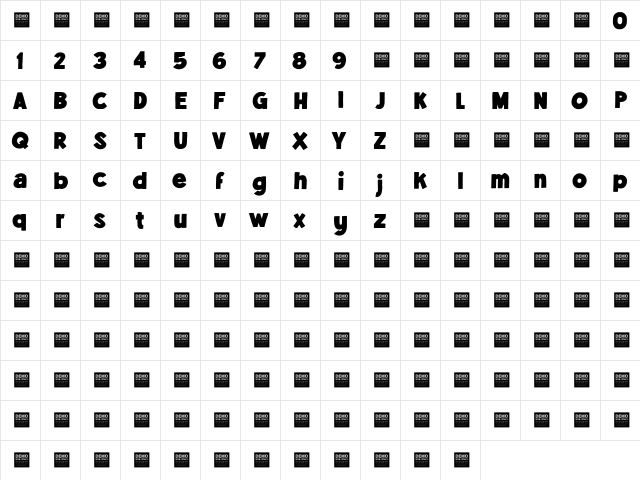
Spare Parts - Demo Regular
Design Context for Spare Parts - Demo Typeface
Spare Parts - Demo offers clean, dependable letterforms without strong stylistic allegiance, making it a practical choice for designers who need flexibility.
Pro Tip: Use Spare Parts - Demo in both headline and body roles to test its range before committing to a single application.